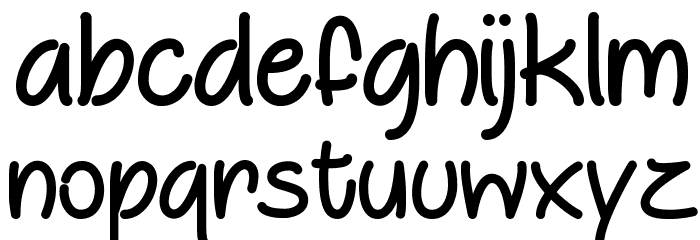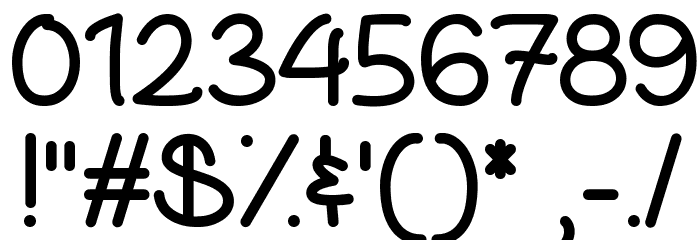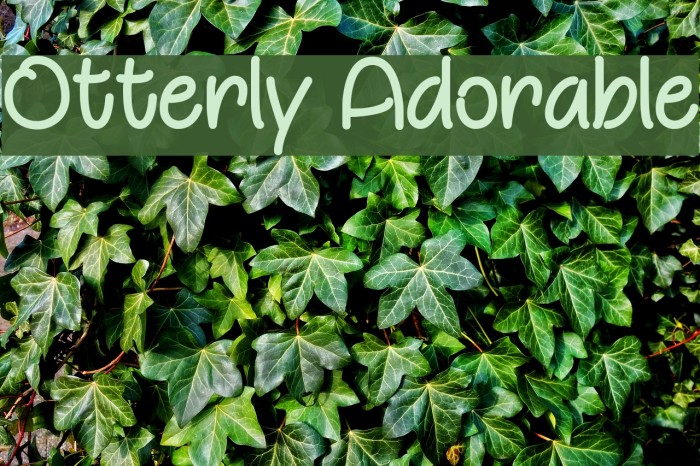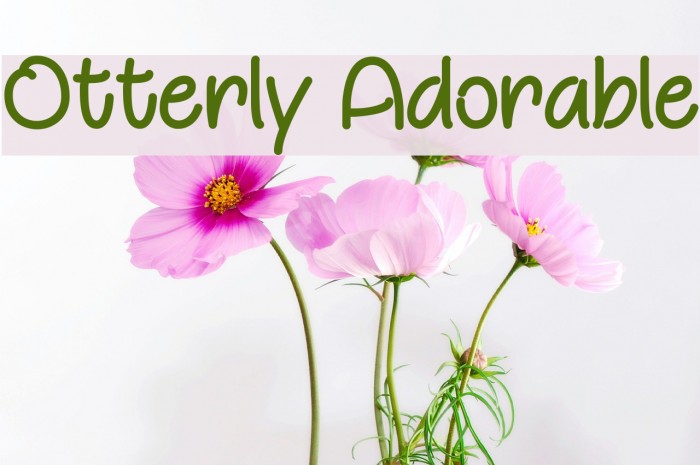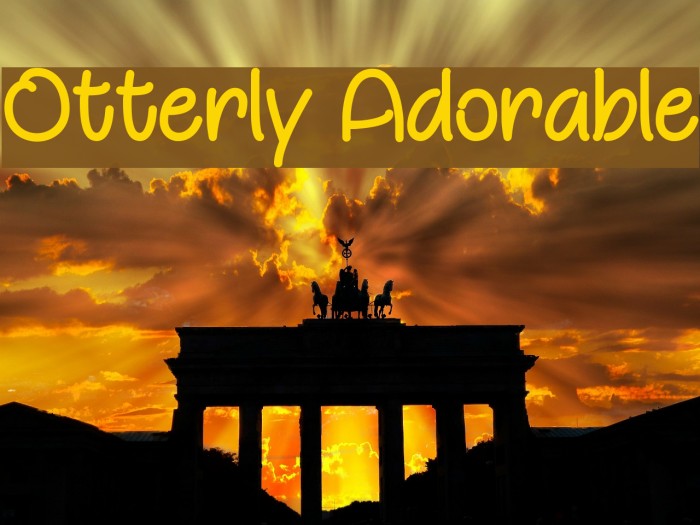
Otterly Adorable Font
This font features a playful and whimsical style, characterized by its rounded and smooth letterforms. The strokes are consistent in thickness, giving it a uniform appearance. The letters have a handwritten quality, with slight variations that add a personal touch. The uppercase letters are bold and prominent, while the lowercase letters maintain a friendly and approachable look. The numbers and special characters follow the same playful theme, making them easily readable and visually appealing. This font is perfect for projects that require a fun and informal tone.
A playful, rounded font with a handwritten style and consistent stroke thickness.
- Proposed Projects: Ideal for children's books, greeting cards, playful branding, and social media graphics.
- Overall Style: Playful
- Use Case: Logos, Headlines, Informal Text